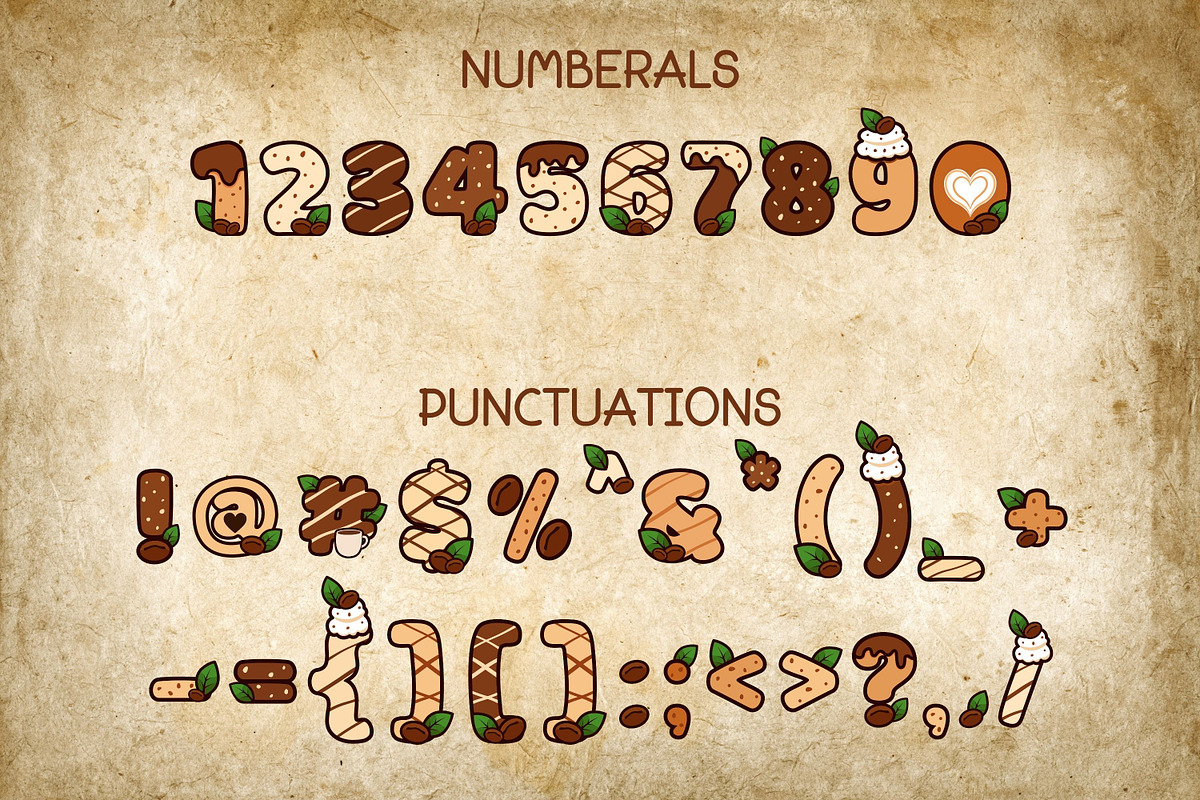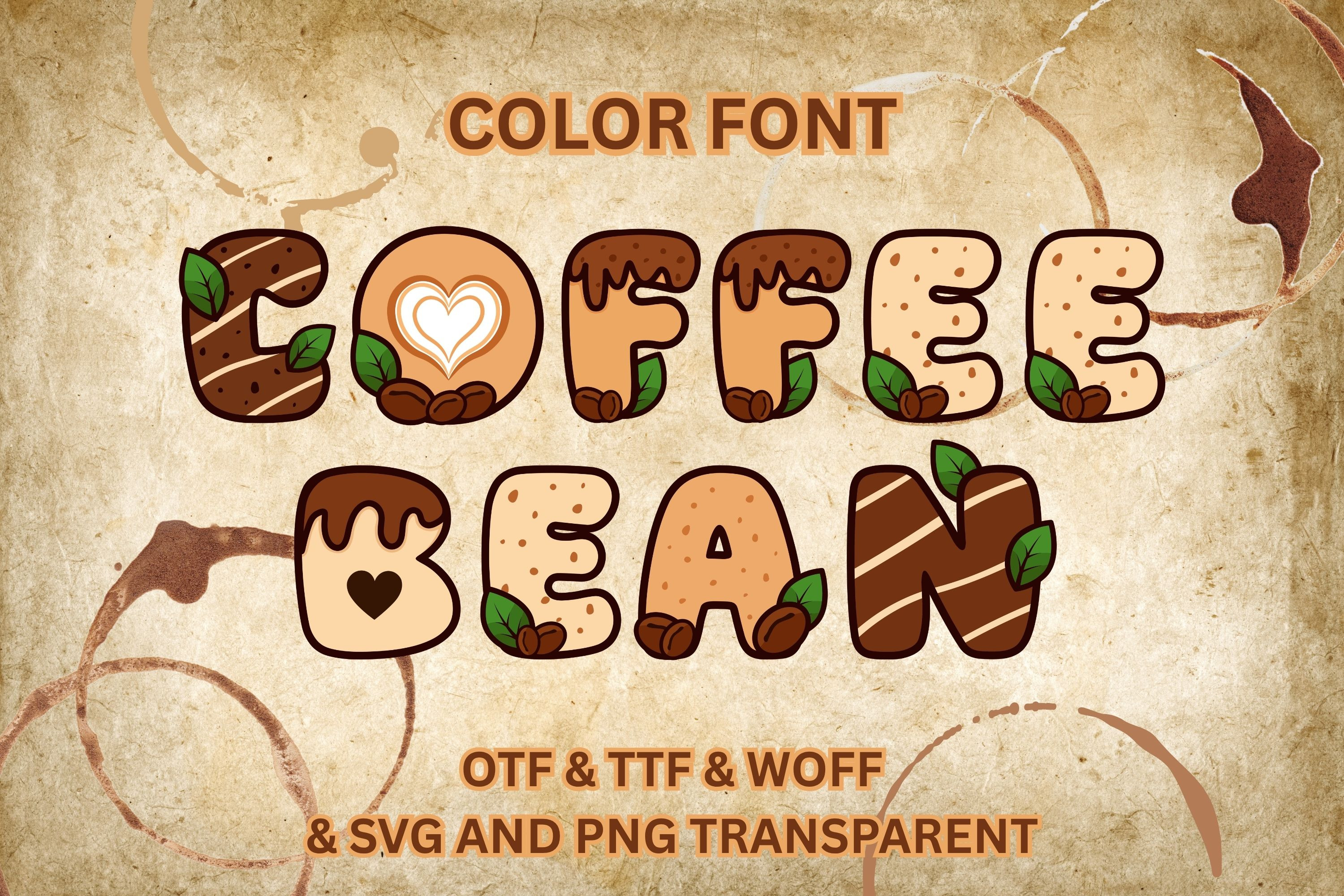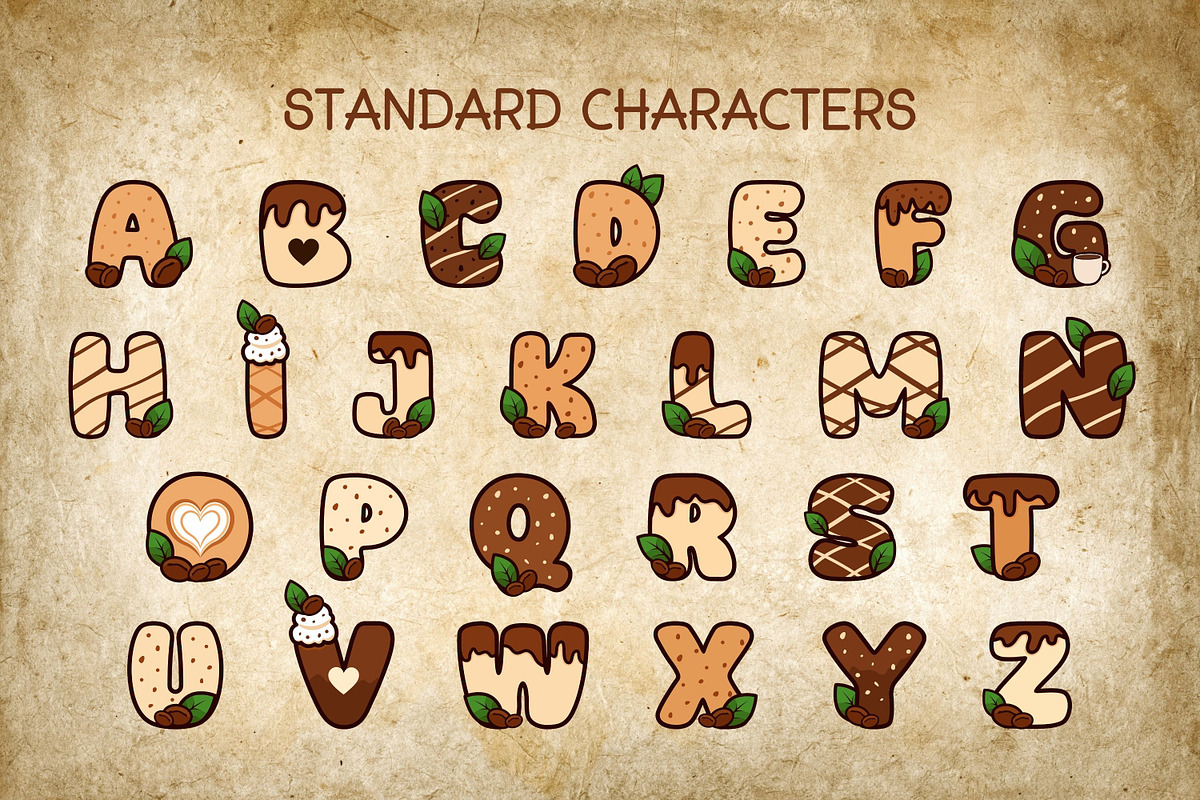
Coffee Bean - Color Font
Bring the cozy atmosphere of your favorite coffee shop into your designs with this playful Coffee Bean Color Font and Alphabet Bundle. Each character is hand-drawn with charming café-inspired details, including coffee beans, green leaves, chocolate drizzle, latte art, whipped cream, cookie textures, and warm caramel tones.
This decorative display font includes uppercase A–Z, numerals 0–9, punctuation, and symbols, with unique artwork throughout the character set. The chunky, rounded letterforms make it ideal for bold headlines, coffee shop branding, packaging, menus, stickers, merchandise, and personalized designs.